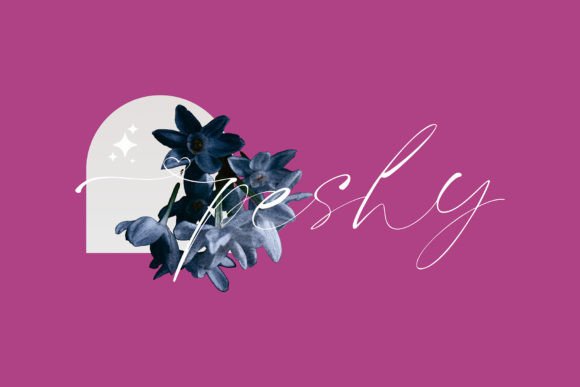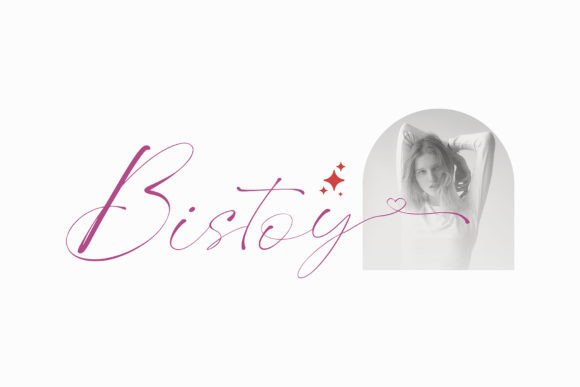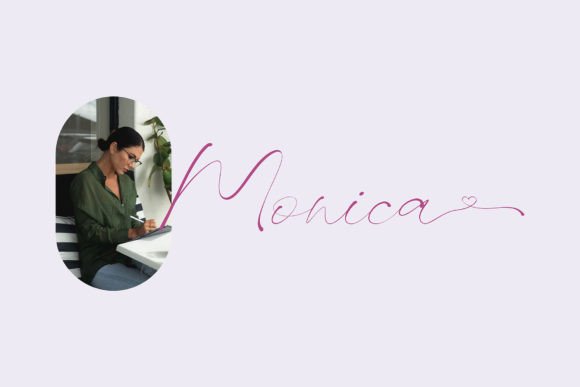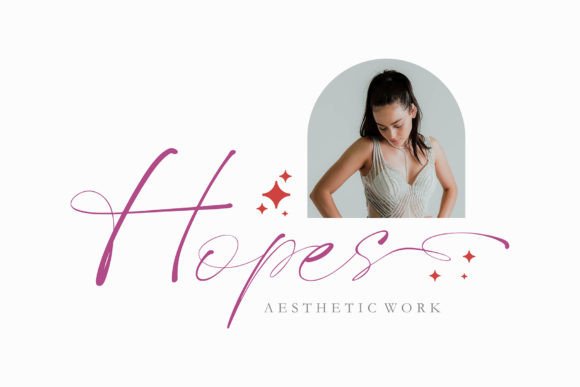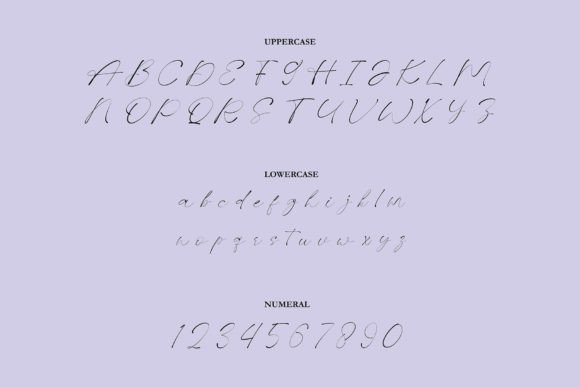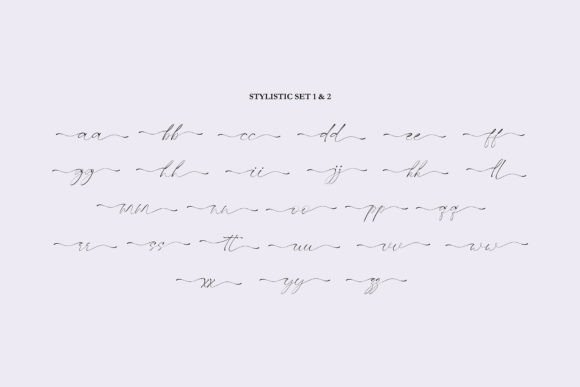
Discover the Perfect Touch of Romance with Bouquet Guides Font Font
Do you remember the moment when a beautiful design comes together, and you can’t help but feel a rush of excitement? It’s that instant when your creative vision is finally brought to life. For designers, this moment is often the culmination of hours of brainstorming, sketching, and experimenting with different fonts. And that’s where Bouquet Guides Font Font comes in – a romantic and unique script font designed to take your creations to new heights.
This versatile font is perfect for a wide range of applications, from wedding designs and romantic events to headlines, billboards, and magazine titles. With its PUA encoding, you’ll have easy access to all the glyphs and swashes, allowing you to add a personal touch to your designs. Whether you’re working on a branding project, creating a T-shirt design, or crafting a logo, Bouquet Guides Font Font is an incredible asset to have in your font library.
Bouquet Guides Font Font Key Features
- Font Family: Bouquet Guides Font Font is a beautiful, elegant script font, ideal for wedding invitations, floral designs, and other creative projects.
- Character Count: The font contains 120 characters, including uppercase and lowercase letters, numbers, and special characters.
- Unique Characteristics: The Bouquet Guides Font Font features a beautiful, hand-drawn design with subtle flourishes and elegant lines, making it perfect for adding a touch of sophistication and elegance to any project.
Bouquet Guides Font Review
I recently had the chance to work with the Bouquet Guides Font, and overall, I’m impressed with its unique character. ✨ One of the standout features is its elegant, handwritten feel, which adds a touch of sophistication to any design project. The font’s subtle imperfections and flair make it perfect for creating a sense of luxury and high-end quality.
Another advantage of the Bouquet Guides Font is its versatility. ✨ It can be used in a wide range of applications, from headings and titles to body text and captions. The font’s large character set and support for multiple languages make it a great choice for international projects.
However, there are a few limitations to consider: ⚠️ The font may not be suitable for projects that require a more straightforward, modern aesthetic. Additionally, the font’s large file size may cause issues with slower internet connections or older systems.
- Works well for: luxury branding, high-end marketing materials, and elegant packaging design
- Limited by: modern, minimalist designs and slower internet connections
Overall, I’m a fan of the Bouquet Guides Font, and I think it’s a great addition to any designer’s toolkit. With its unique character and versatility, it’s sure to add a touch of elegance to any project.
The Bouquet Guides Font Font is ideal for wedding invitations, floral-themed designs, and any project that requires a touch of elegance and sophistication. You can also use it for titles, headings, and body text in a variety of designs.